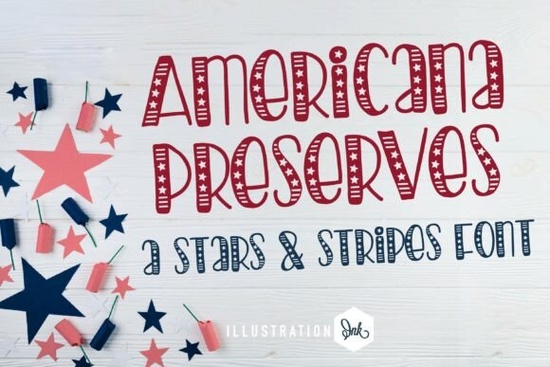
If you are looking to bring a warm, nostalgic feel to your summer projects, the Americana Preserves Font is a fantastic choice. Created by Illustration Ink, this hand-lettered display typeface blends casual script fluidity with subtle patriotic geometry. It is perfect for crafters, print-on-demand sellers, and small business owners who want to add a sweet, hand-crafted touch to their rustic designs. You can explore the full display typeface to see all the included glyphs and how the inline patterns work across different characters.
What makes this typeface stand out for rustic designs?
The charm of this lettering lies in its unique inline details. Instead of plain letters, the smooth, rounded characters are lined with alternating patterns of tiny internal stars and horizontal flag stripes. This gives the text an undeniable artisanal quality without looking overly busy. The friendly, marker-like lines make it highly readable while keeping that authentic, small-town country summer vibe. It strikes a beautiful balance between casual flow and structured, patriotic geometry.
Where can I use this hand-lettered style in my shop?
Because of its cozy and festive personality, this font works beautifully across a variety of physical and digital products. Here are a few practical ways you can apply it to your storefront:
- Farmers market signage: Use it for chalkboard menus or wooden crate labels to give your booth a welcoming, local feel.
- Rustic baking labels: It looks wonderful on mason jar lids, recipe cards, and homemade jam wrappers.
- Backyard barbecue banners: The subtle patriotic stripes make it a great fit for summer party invitations and decor.
- Country kitchen decor: Print it on wooden signs or canvas toppers for a sweet, hand-crafted aesthetic.
If you are pairing it with other styles, you might want to balance it with a cleaner option. For instance, if you need a highly legible body text to match your display headers, you could look into Simple Handwriting for a more casual secondary text, or explore Subscribery if you need something a bit more elegant for your secondary headings.
How does it compare to other script options?
When choosing a display typeface, it helps to see how it fits into your broader collection. While this specific design focuses on patriotic and rustic themes, you might need something different for other seasons or products. If you are working on a sweet dessert-themed project that doesn't need the starry details, Wild Honey offers a similarly warm but more fluid script feel. Alternatively, for a very basic, everyday casual look, Sederhana provides a clean, unembellished handwriting style that pairs well with busier display options.
What are the best practices for printing this font?
Because the letters contain tiny internal stars and stripes, the way you print or cut this font matters for the final result.
- Vinyl cutting: If you are using a digital cutting machine, keep the size relatively large. The tiny inline details can get lost or tear if the letters are cut too small.
- Sublimation and DTG: These methods handle the fine details beautifully, making them ideal for t-shirts, tote bags, and mugs.
- Digital use: For web headers or social media graphics, ensure you are exporting at a high resolution so the inline patterns remain crisp and clear.
Quick tips before you start your next project
- Check your cutting size: Always do a test cut on paper first to ensure the internal stars and stripes are visible and clean.
- Pair with simple backgrounds: Let the inline details shine by using the font on solid, rustic colors like navy, cream, or barn red.
- Use kerning carefully: Because of the decorative inline patterns, give the letters a little extra breathing room so the design doesn't look cluttered.
- Test on your specific material: Ink can bleed on certain fabrics, which might blur the tiny stripes, so always run a small batch test first.